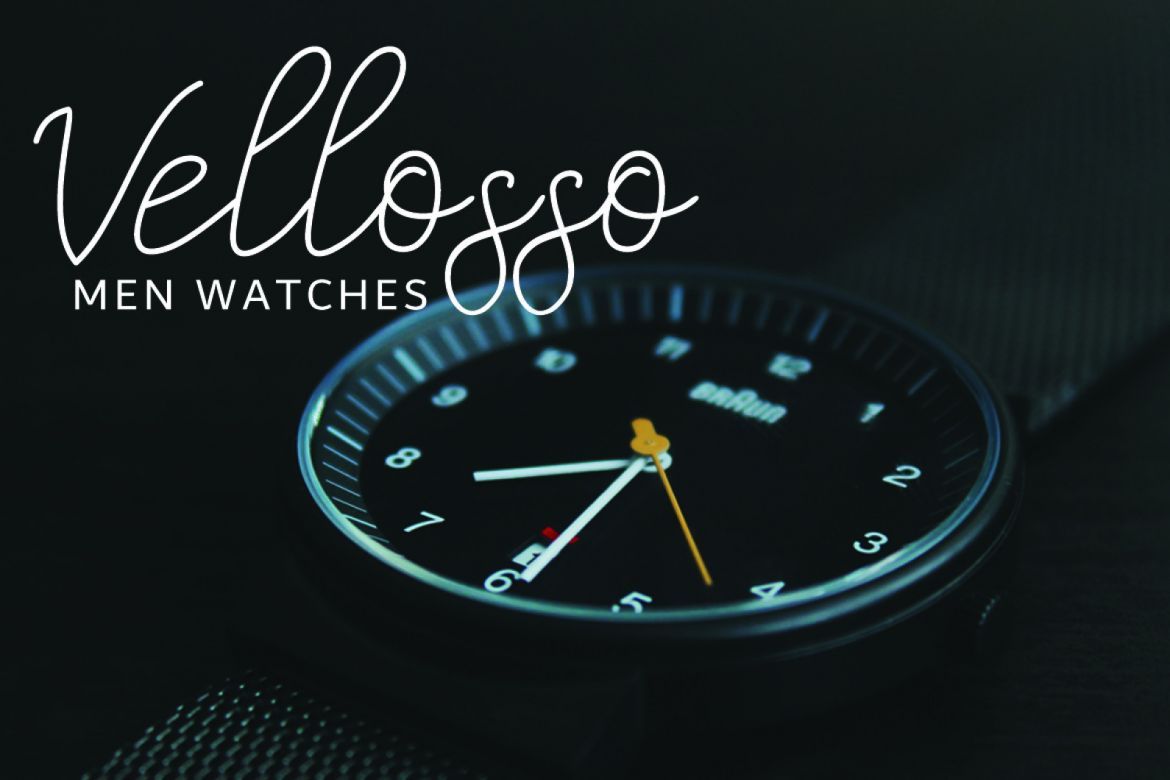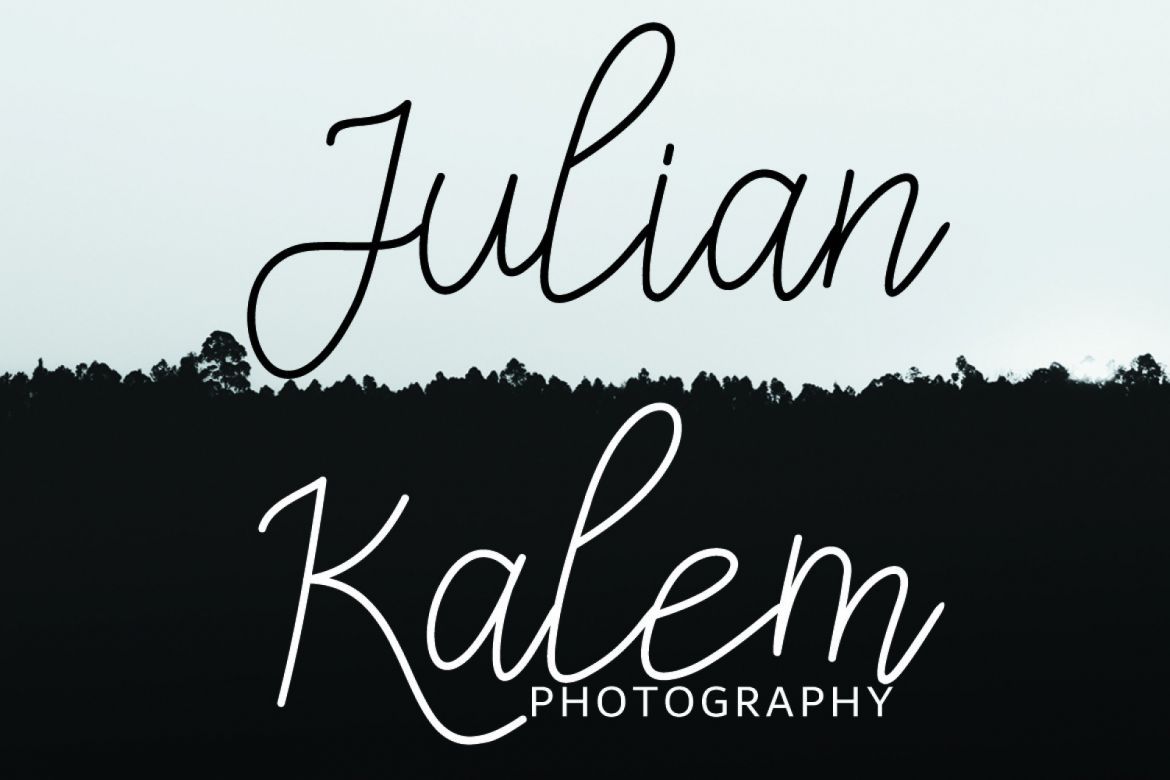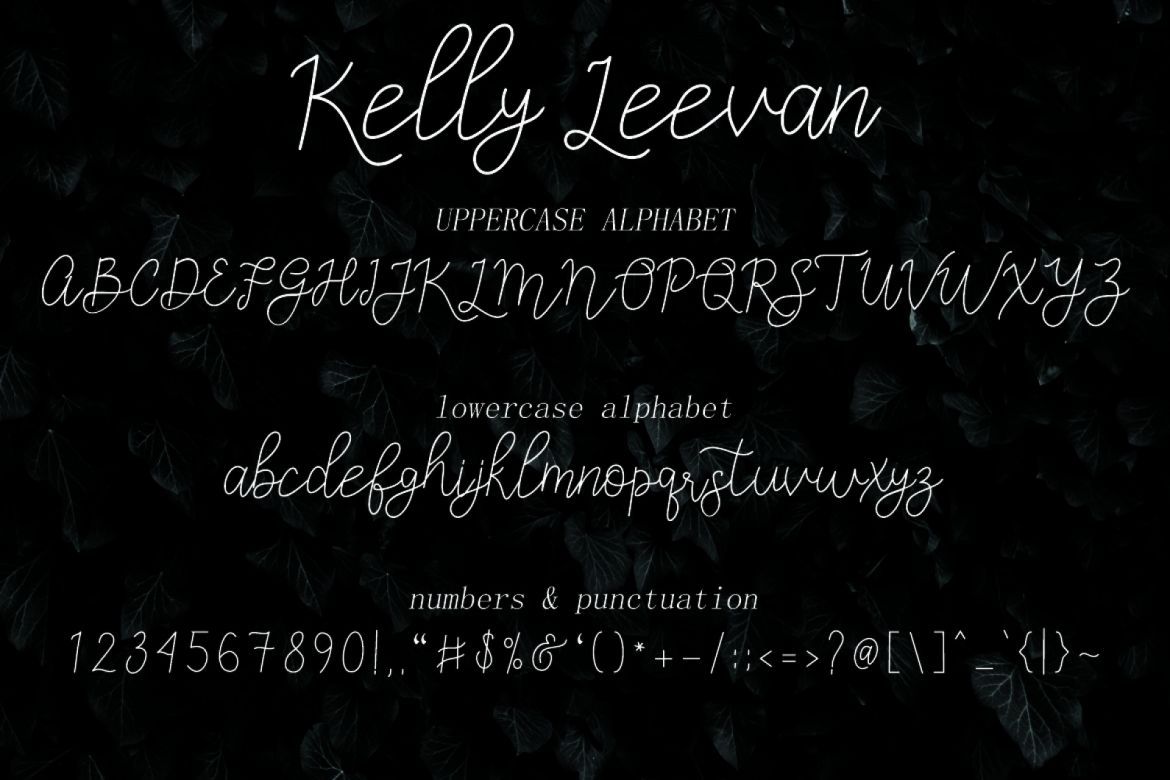
Kelly Leevan Handwritten Font
Kelly Leevan is a simple handwritten script font. "Kelly Leevan" is perfectly suited to stationery, logo, typography quotes, magazine or book cover, website header, clothing, branding, packaging design and more.